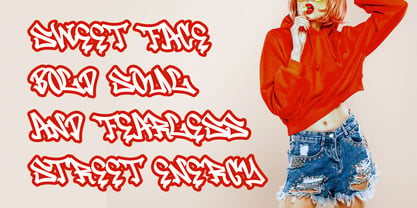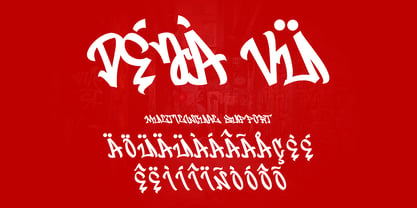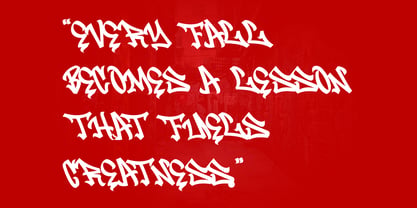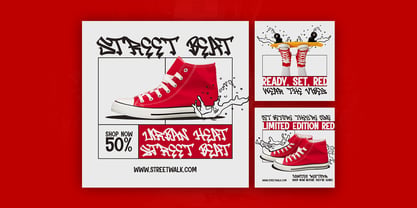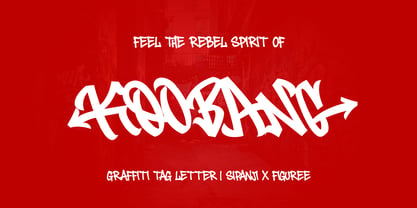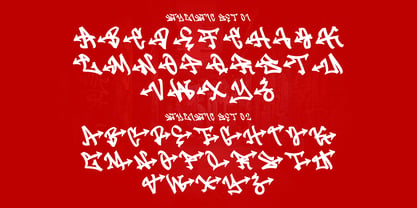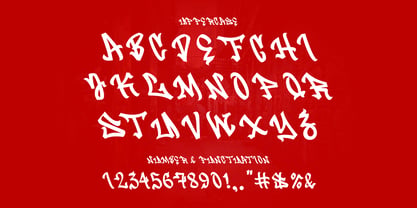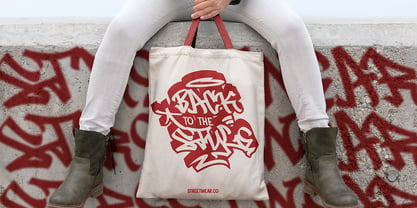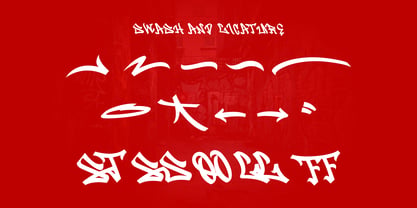
Koobang
by Sipanji21
The Koobang Font Family was designed by Sipanji and published by Sipanji21. Koobang contains 1 styles. More about this family
Koobang is a monoline graffiti tag font designed to bring authentic street energy and freestyle personality into modern design projects. Built with a smooth monoline flow and expressive handwritten structure, it captures the raw rhythm of tagging culture — fast, fluid, and full of motion. This typeface was inspired by real graffiti markers and urban street calligraphy. Every curve and stroke in Koobang has been carefully balanced to mimic natural handstyle movement, giving it an authentic street look that feels spontaneous and real. It’s not just a font — it’s the voice of urban expression. Koobang includes Swash, Ligatures, and Multilingual Support, giving designers powerful creative freedom to customize lettering combinations naturally. You can add dynamic energy to your text while keeping it fluid and stylish. The monoline style ensures perfect consistency, making it ideal for both professional branding and wild street compositions. Why Designers Love Koobang Authentic graffiti tag style with modern usability Swash and Ligature support for natural writing rhythm Smooth monoline flow that feels hand-drawn Great readability and character balance Perfect for logos, posters, apparel, and social media visuals Koobang fits perfectly for streetwear brands, hip-hop artists, graffiti collectives, and urban design projects that need a blend of authenticity and modern polish. From apparel design and event flyers to digital artwork and brand identities, Koobang helps you channel street culture with sophistication. Use Cases Apparel & Streetwear: t-shirts, hoodies, tote bags, caps Digital Branding: YouTube thumbnails, social media ads, graffiti title cards Print Media: posters, album covers, stickers, signage Creative Projects: murals, logos, merchandise, and typography art Koobang’s handmade energy and clean monoline execution make it timeless — it looks raw but remains elegant. It’s bold, expressive, and easy to use for designers around the world who want to represent street culture with class.
Designers: Sipanji
Foundry: Sipanji21
Koobang